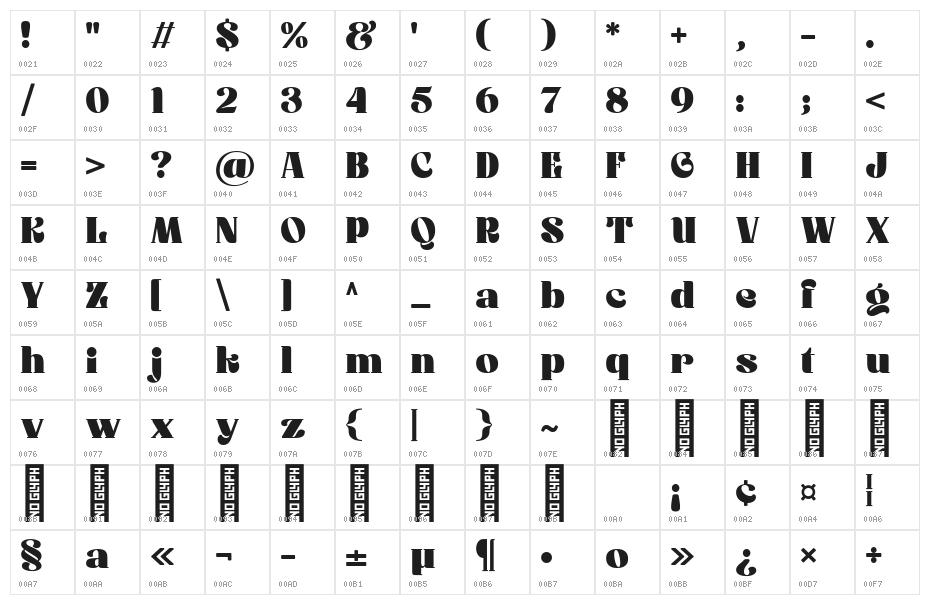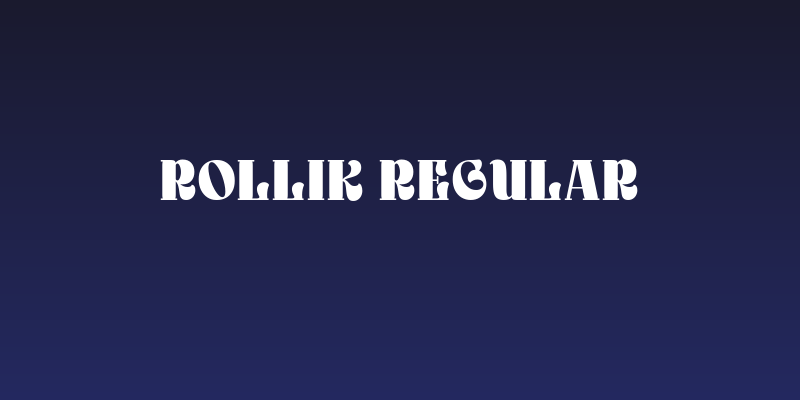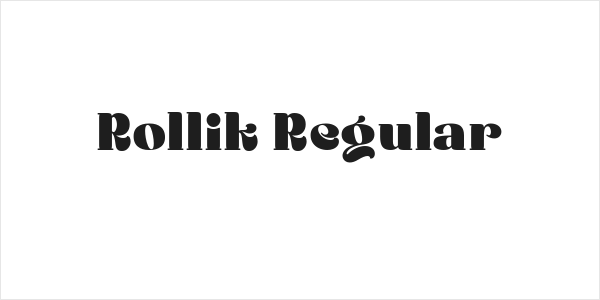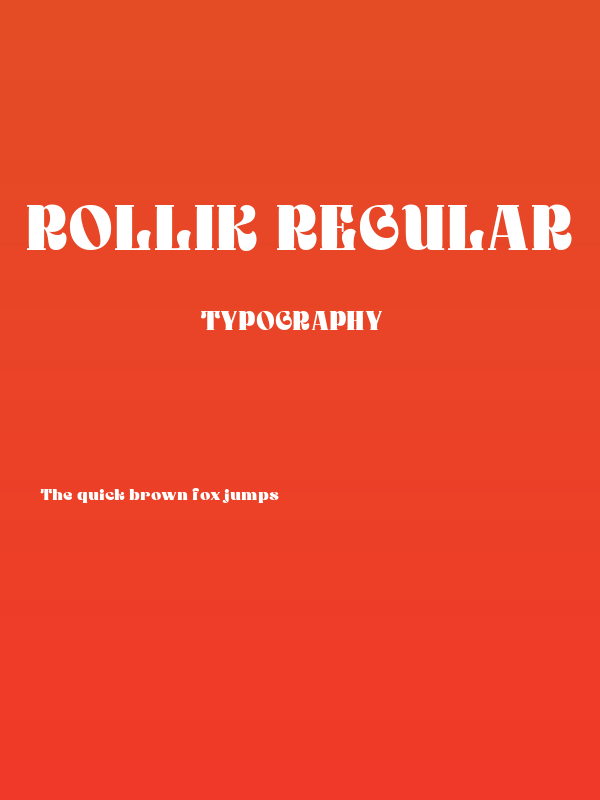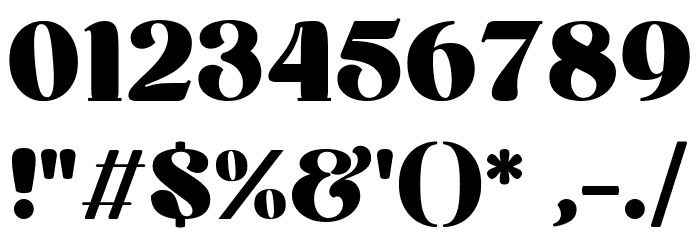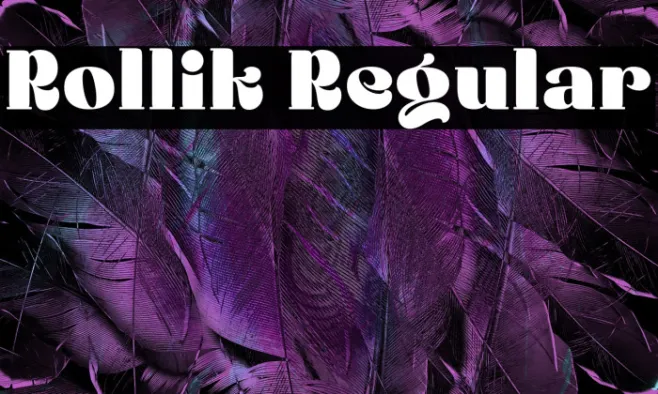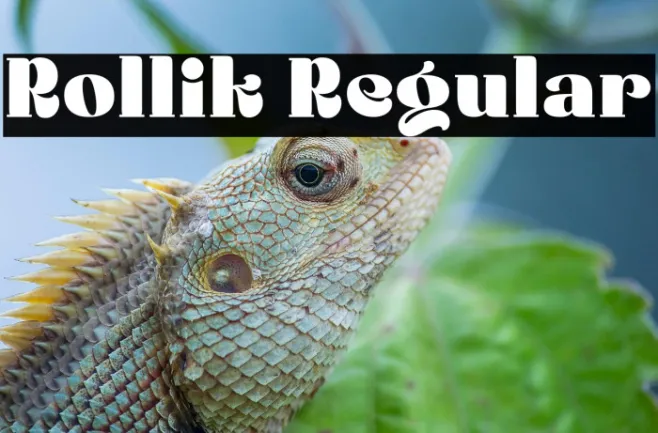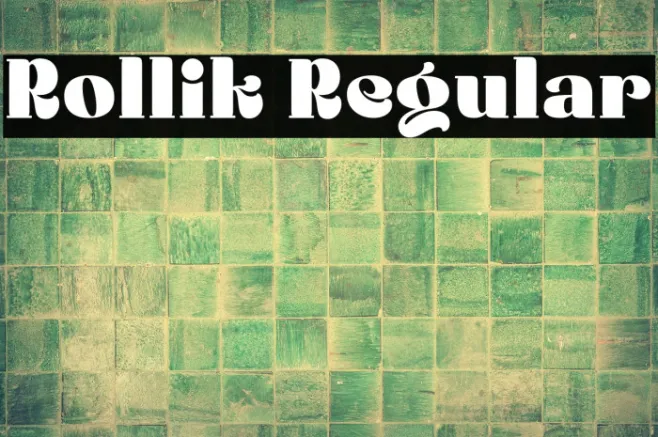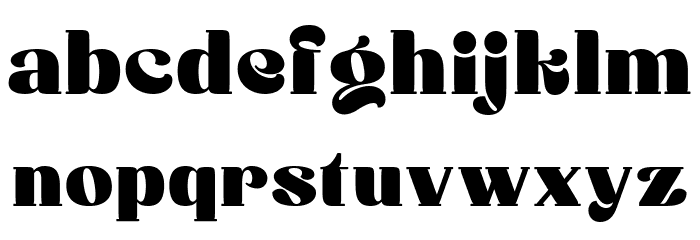
Rollik Regular Font
Rollik Regular Description
This font features a bold and striking design with thick, heavy strokes that create a strong visual impact. The characters are crafted with a unique blend of curves and sharp edges, giving them a distinctive and artistic flair. The uppercase letters are particularly prominent, with a commanding presence that makes them ideal for attention-grabbing headlines. The lowercase letters maintain the boldness while offering a slightly softer appearance. Numbers and special characters are equally robust, ensuring consistency across all text elements. The overall style is both modern and decorative, making it suitable for creative and dynamic projects.
| Proposed Projects | Ideal for branding, poster design, headlines, and any project requiring a strong visual impact. |